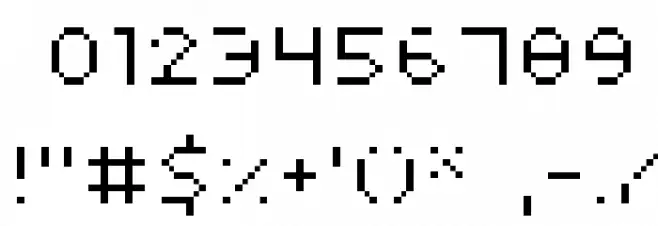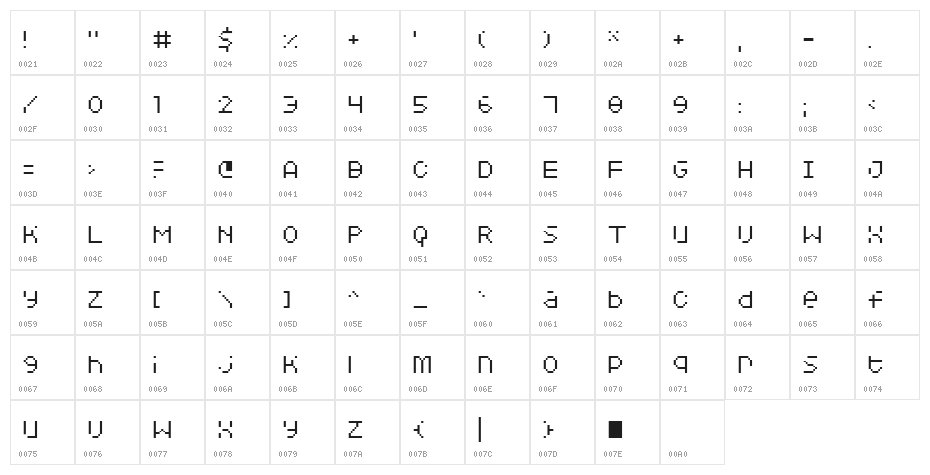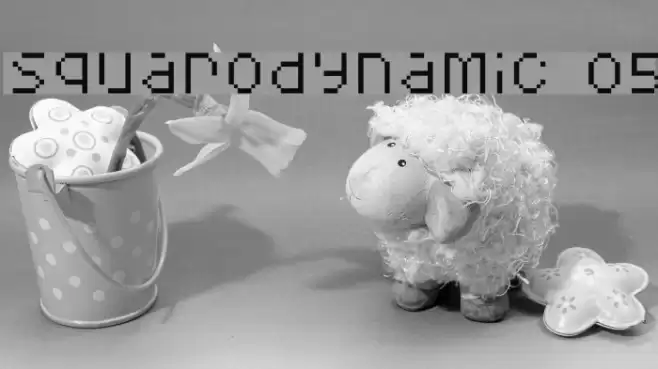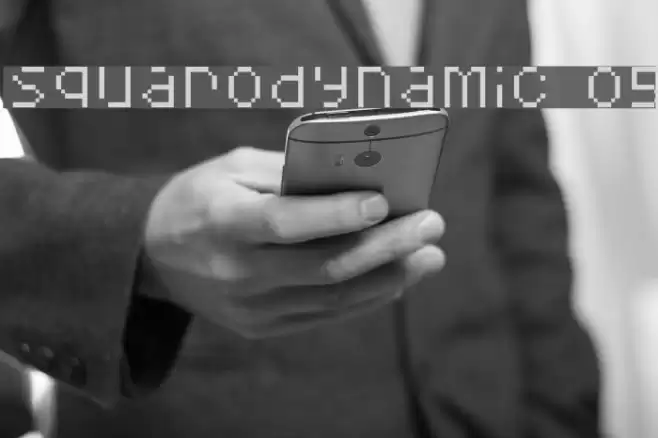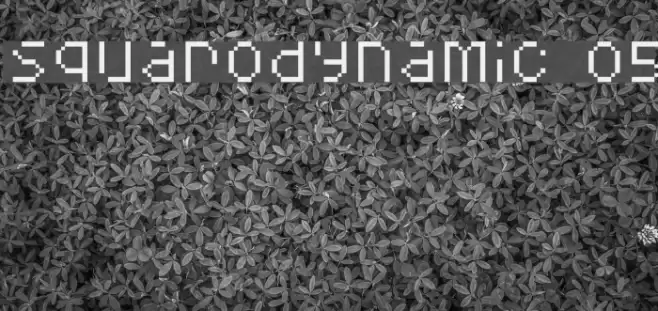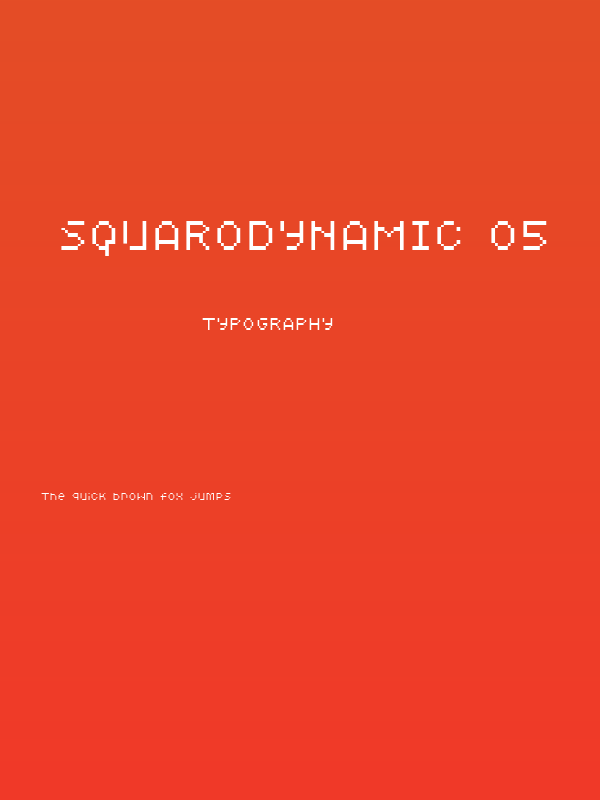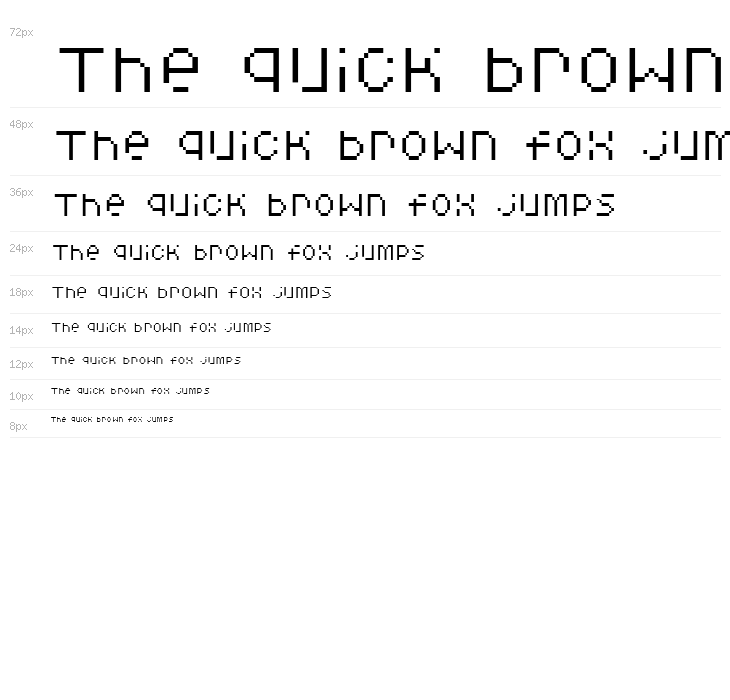
Squarodynamic 05 Font
Squarodynamic 05 Description
This font features a distinct pixelated style, reminiscent of early digital displays and retro video games. Each character is composed of square, block-like elements that create a uniform, grid-based appearance. The uppercase and lowercase letters maintain a consistent height, contributing to a cohesive look. Numbers and special characters follow the same geometric pattern, ensuring visual harmony across all glyphs. The font's design is straightforward and minimalistic, with no additional flourishes or embellishments, making it ideal for projects that require a clean, digital aesthetic.
| Use Case | Headlines, Logos, Digital displays |
| Proposed Projects | Ideal for video game design, digital art projects, retro-themed websites, and tech-related branding. |